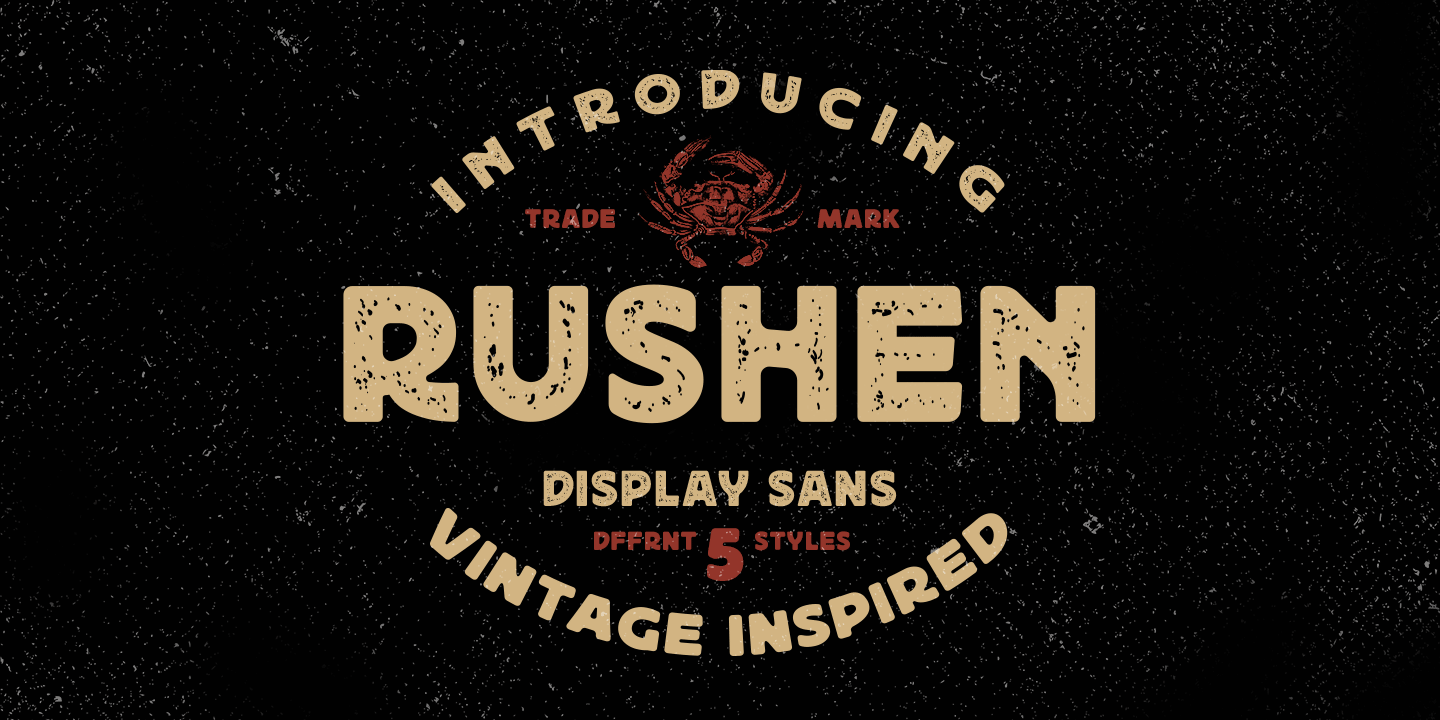
Discover the bold Rushen Font Free Download, a vintage-inspired sans serif typeface designed by Ahmad Ramzi Fahruddin and published by Arterfak Project. This font is perfect for creating a rugged, retro aesthetic. However, please note that you must purchase this font for commercial use. For testing purposes, you can download it for free and explore its dynamic style.
The Rushen Font is ideal for various applications, such as designing striking headlines, crafting unique logos, creating vintage-themed posters, or enhancing branding materials, apparel, and packaging. Its versatility, with five distinct styles and multilingual support, makes it a top choice for projects that demand a bold, nostalgic look.
Why is the Rushen Font Free Download so exciting? Its five styles—Regular, Curvy, Stencil, Shadow, and Distressed—offer diverse aesthetics, from sharp geometric shapes to inky, weathered textures inspired by old-school sign writing. The font’s bold weight and OpenType variants ensure your designs stand out with a timeless, gritty charm, perfect for urban, military, or western themes.
The Rushen Font family includes five styles: Regular for formal elegance, Curvy for inky labels, Stencil for urban and military vibes, Shadow for western flair, and Distressed for vintage appeal, providing flexibility for diverse design needs. These variations are ideal for both print and digital media.